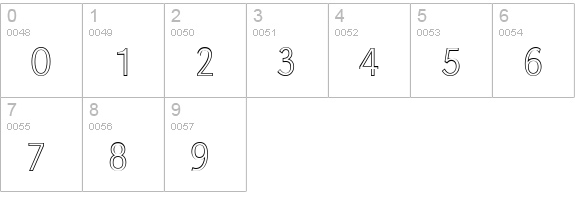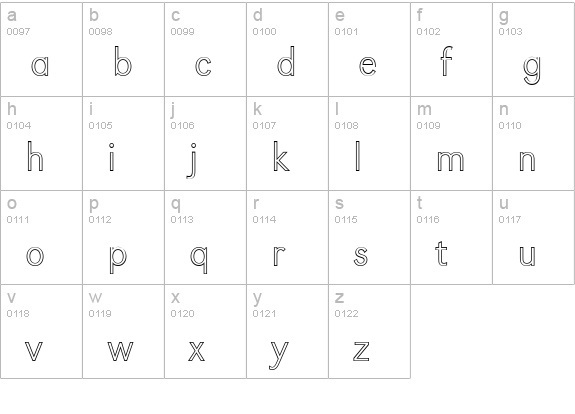
GroteskOu-Xlight-Regular is the standard, neutral variant in the GroteskOu typeface family \xE2\x80\x94 well suited to general body text, paragraphs, and standard typographic work.
GroteskOu-Xlight-Regular is a modern and elegant sans-serif font that exudes sophistication and simplicity. With its clean lines and minimalist design, this typeface is perfect for a wide range of design projects, from branding to editorial layouts. The light weight of the font adds a delicate touch while still maintaining readability and clarity. What sets GroteskOu-Xlight-Regular apart is that it is available for free download at FontsMarket.com. This means that designers and creatives can easily access this high-quality font without any cost, making it a valuable addition to their font library. Whether you're working on a personal project or a client's design, GroteskOu-Xlight-Regular offers versatility and style that will elevate your work to the next level.